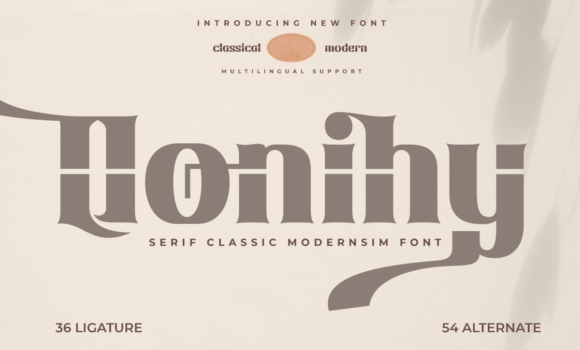
qonihy
Qonihy Font – Free Download Introduction to Qonihy Font Qonihy is a modern serif typeface that is ideal for projects that require a classic yet contemporary look. 📸 Preview Gallery 6 images 📌 Product Name Qonihy Font 👤 Author twinletter